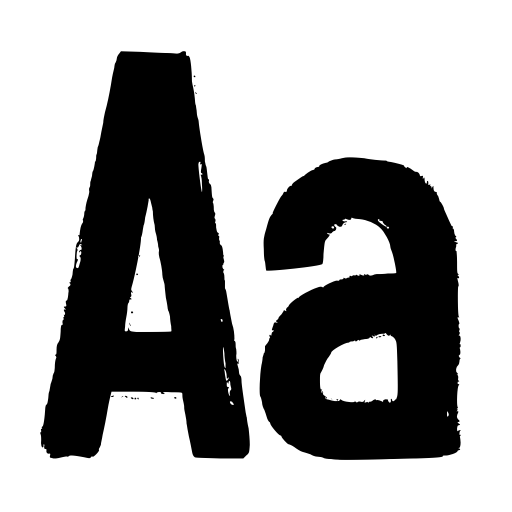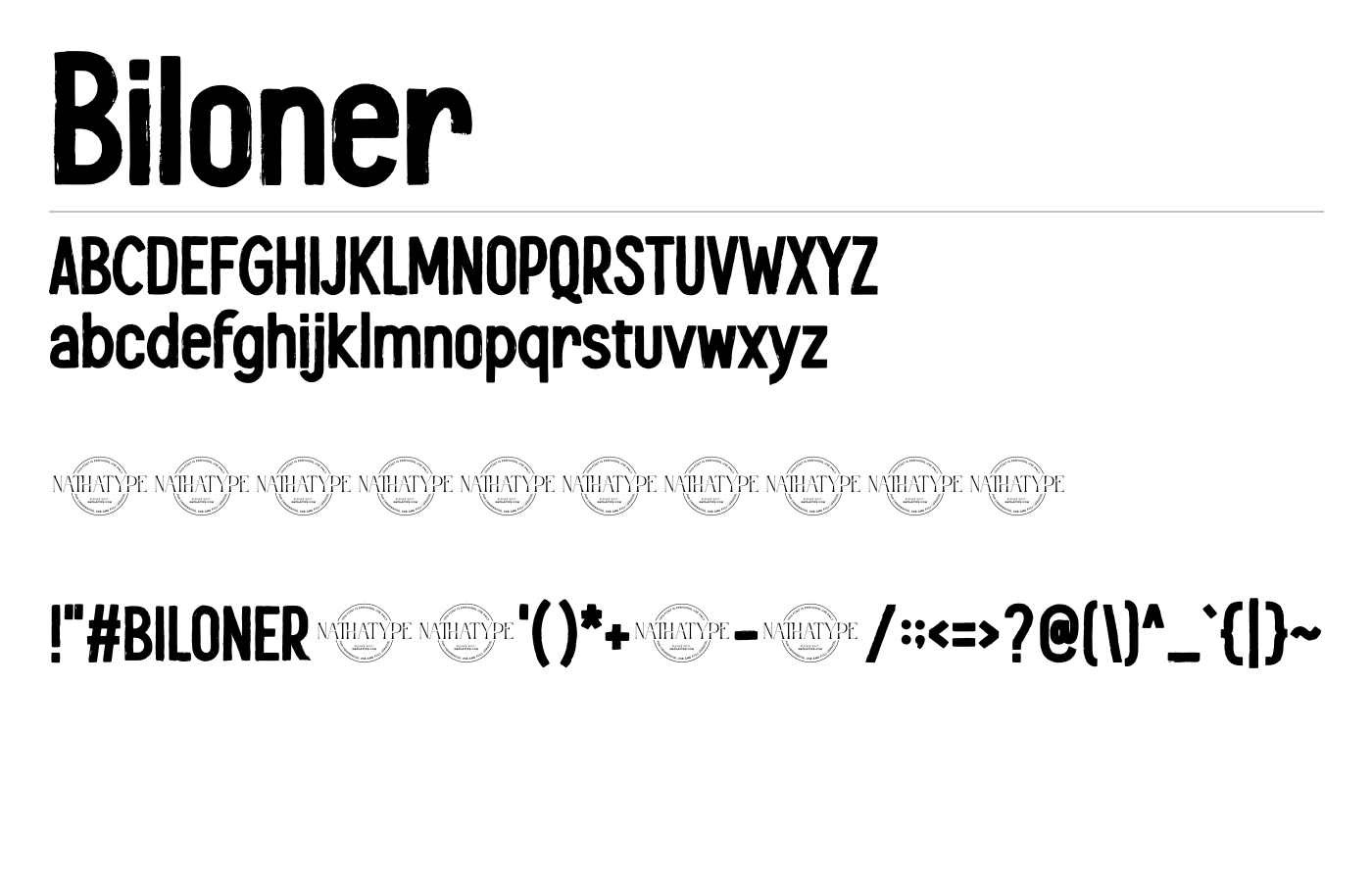
Biloner is a bold, condensed sans-serif font with a handmade, textured feel that adds a distinctive, rustic charm to its strong letterforms. Its uneven strokes and tall x-height give it an energetic and playful personality, making it ideal for eye-catching headlines, branding, and designs that seek a creative, informal vibe. This font works well in packaging, posters, and logos where a casual yet impactful statement is needed.
Biloner Font
About Biloner Font
| Font family | Biloner Font |